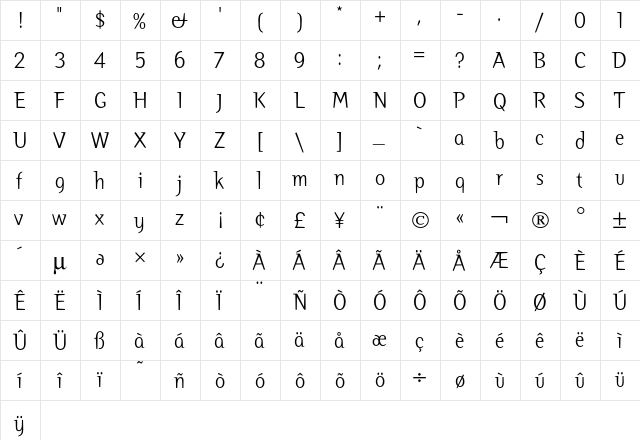
NatWest Light
Design Context for NatWest Typeface
NatWest is a composed and adaptable typeface that performs quietly and consistently across a wide range of design contexts. Its slender proportions lend an understated elegance to any composition.